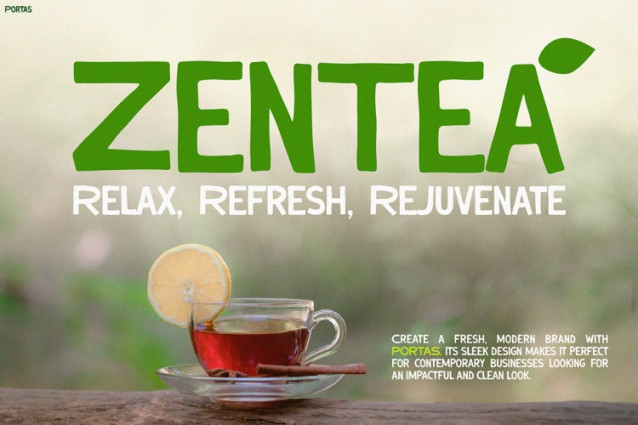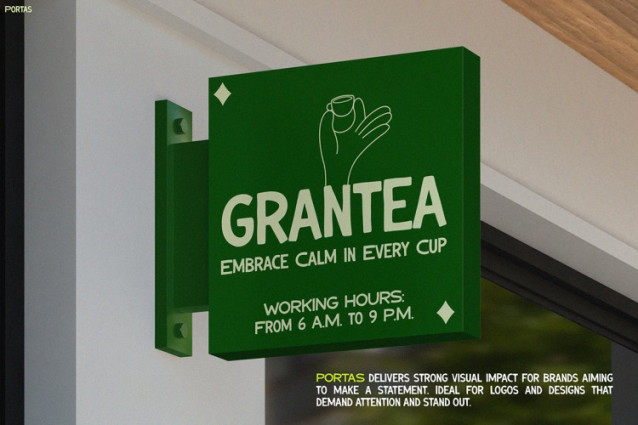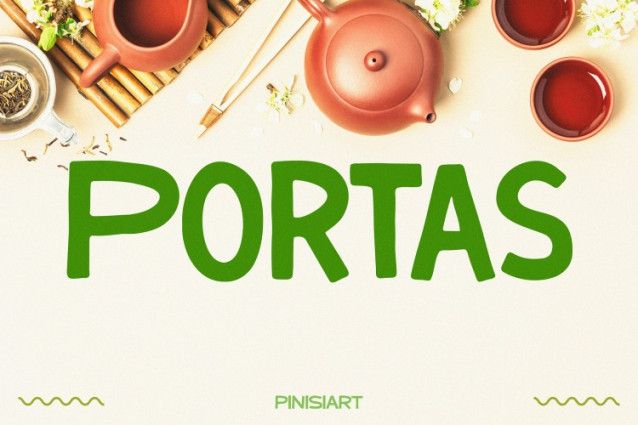
Portas Display Font
Portas Display Font is a modern, friendly typeface that instantly grabs attention. With its relaxed charm and bold curves, Portas offers a fresh look that feels both playful and professional. Each letter is handcrafted with subtle irregularities, which gives the font a human touch. Therefore, it’s perfect for creating content that feels warm, authentic, and visually unique.
Moreover, the aesthetic of Portas stands out in social media content. It combines legibility with personality, making it ideal for bold headlines or engaging quotes. Whether you’re crafting Instagram posts, café menus, or eco-friendly product labels, this font adapts beautifully. It works well in minimalist layouts but also holds its ground in more colorful or textured designs. In other words, it offers flexibility without losing its identity.
Portas brings a calm and clear rhythm to any visual content. Because of its natural flow and organic feel, it instantly makes your brand look approachable and modern. Additionally, its rounded strokes and steady spacing improve readability while maintaining a stylish edge. Whether you’re creating posts, packaging, or promotional materials, Portas keeps things fresh and cohesive.
Furthermore, Portas delivers consistent results across both digital and print media. The bold weight ensures your words don’t just blend in—they stand out. Also, the font’s versatility makes it a reliable choice for many creative projects.
This font is ideal for small business owners, lifestyle creators, and eco-conscious brands. Particularly, cafés, tea brands, skincare labels, and wellness startups will benefit from its friendly personality. Designers looking for something approachable yet trendy will also find it appealing. If your goal is to create a calm, clean brand with emotional impact, Portas fits the vision.